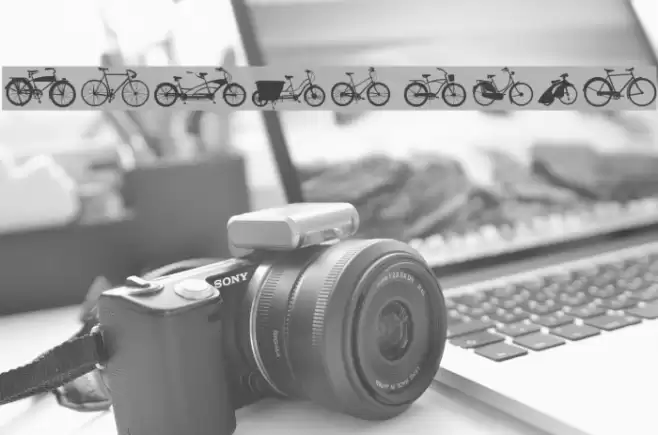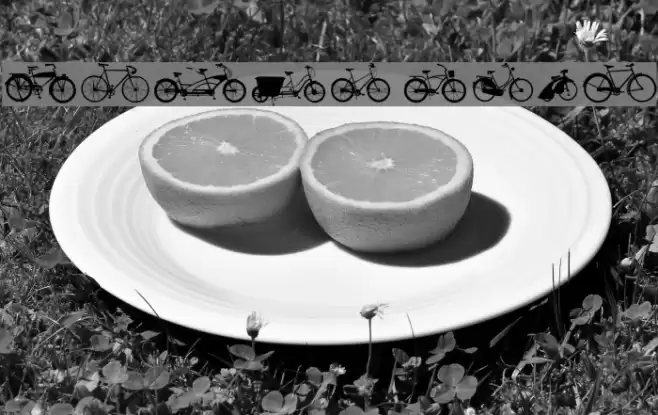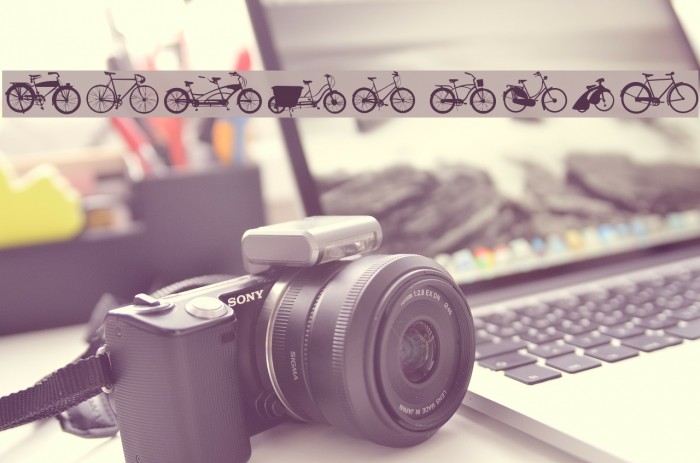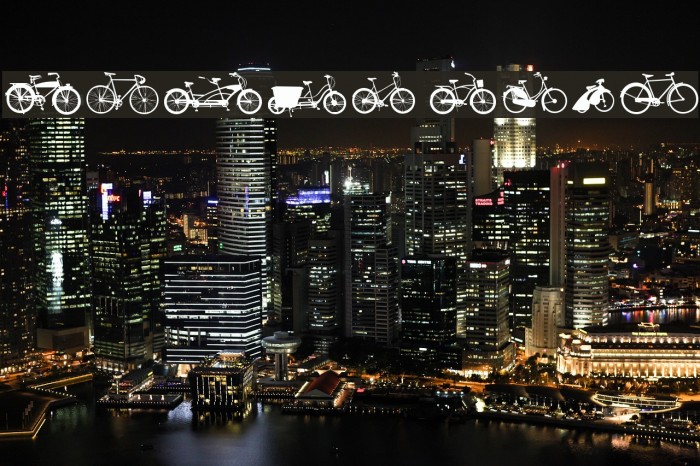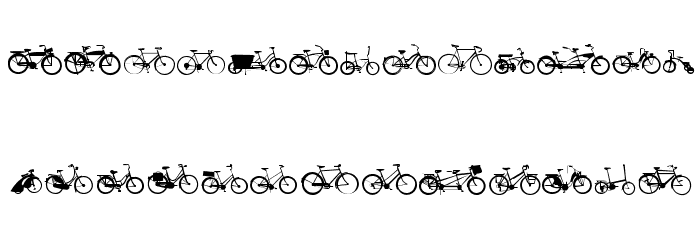
BIKES Font
BIKES Description
A decorative font where each character is represented by a detailed silhouette of a different type of bicycle or bike-related vehicle, creating a playful and thematic visual effect.
Each letter and symbol is depicted as a unique bicycle silhouette from Uncategorized fonts.
- Proposed Projects: Children’s books, cycling event posters, themed invitations, bike shop branding, playful infographics.
- Overall Style: Decorative, Playful, Thematic
- Use Case: Logos, Headlines, Posters, Themed Graphics